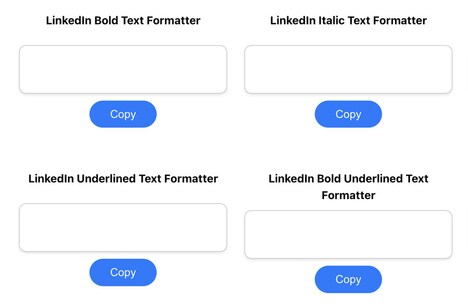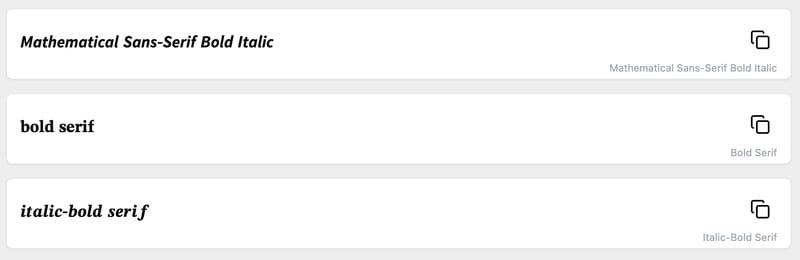
A Bold Font Generator is an online tool that converts standard text into bold and visually striking font styles. It is designed to help users enhance the impact of text in digital communication, social media posts, graphic design, and messaging applications.
Typically, these tools allow instant transformation without requiring downloads or installation, making them accessible and convenient for a wide range of users. Bold fonts generated are often compatible with most social media platforms, messaging apps, and web interfaces, ensuring consistent display across different environments. For designers, marketers, and content creators, such a tool can streamline the creation of attention-grabbing headlines, captions, or promotional text. Its simplicity and speed provide a low-friction solution for enhancing textual emphasis in everyday digital communication.
What Makes This Trend Stand Out
- Enhanced Text Communication
- The rise of bold font generators highlights a growing need for more dynamic and engaging digital communication tools across various platforms.
- Instant Text Styling
- The demand for real-time text transformation tools offers new opportunities for developing on-the-fly conversion applications that integrate seamlessly into user experiences.
- Cross-platform Font Compatibility
- As digital environments diversify, tools ensuring font style consistency across platforms become essential for maintaining brand integrity and messaging clarity.
Sectors Adopting This
- Social Media Marketing
- Marketing strategies increasingly rely on bold font generators to craft captivating content that stands out in the crowded social media landscape.
- Graphic Design Software
- The integration of instant text styling features into graphic design tools can revolutionize the way designers create and adapt visual content.
- Communication Platforms
- Messaging applications leveraging bold font generators can enhance user engagement by offering more expressive text styling options.